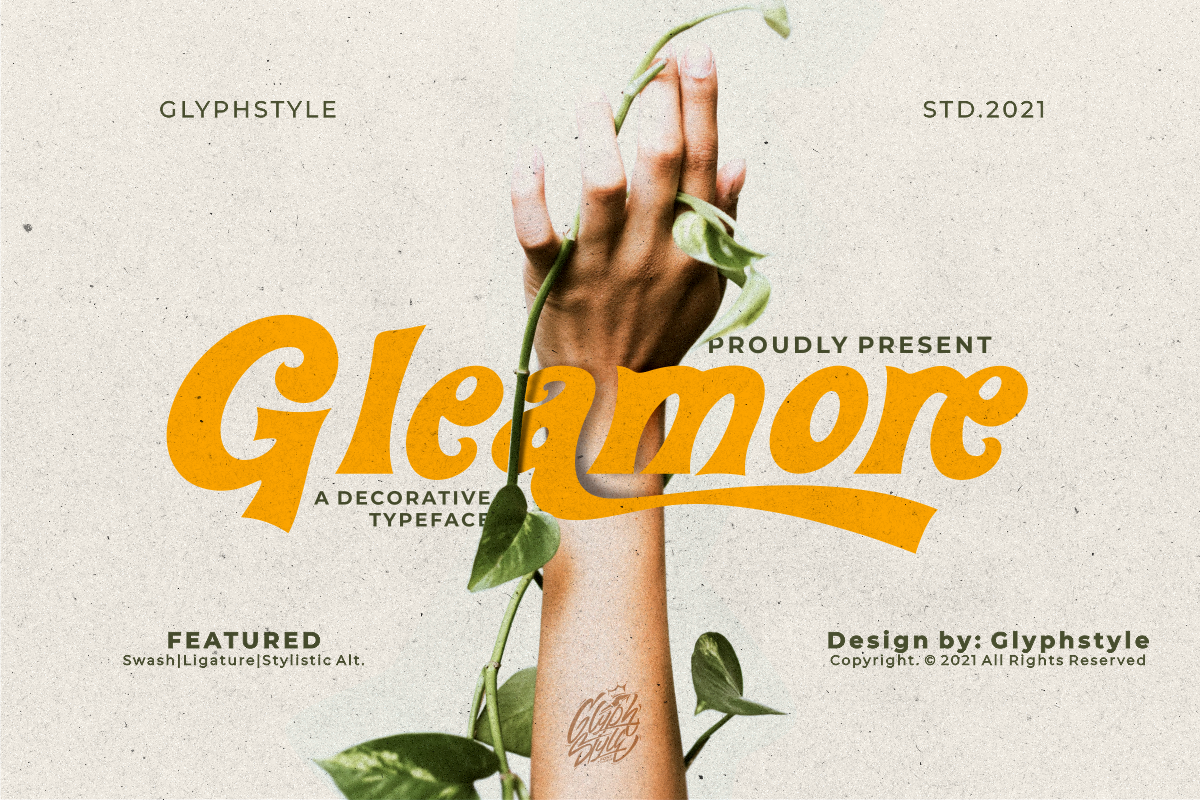
Gleamore Display Font
Gleamore is a decorative display font, looks stylish. The bold shape combined with the unique curve shape makes this font easy to read and looks beautiful.
Gleamore is perfect for branding projects, logos, wedding designs, social media posts, advertisements, product packaging, product designs, labels, photography, watermarks, invitations, stationery, and any project that requires a sense of sans serif decorative font.
- Font feature
Uppercase, Lowercase, Numerals & Punctuations, Stylistic Alt, Swash Ligature, Multilanguage